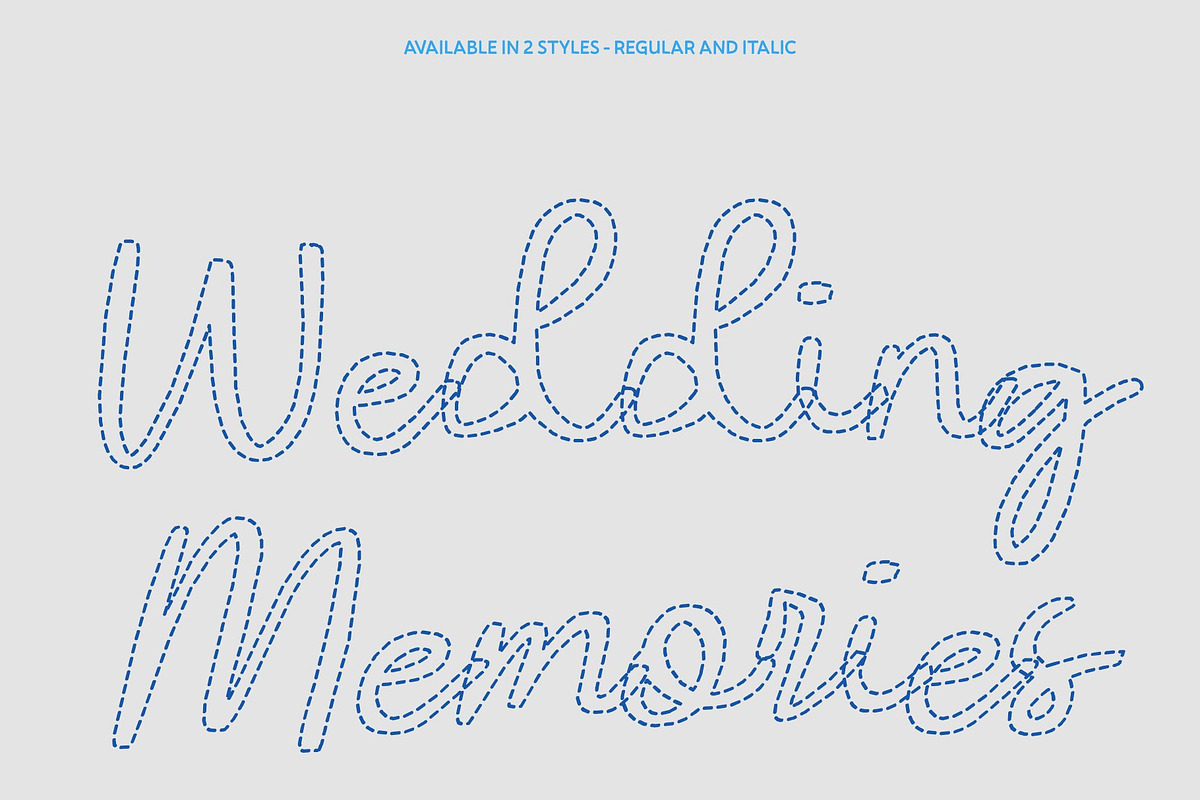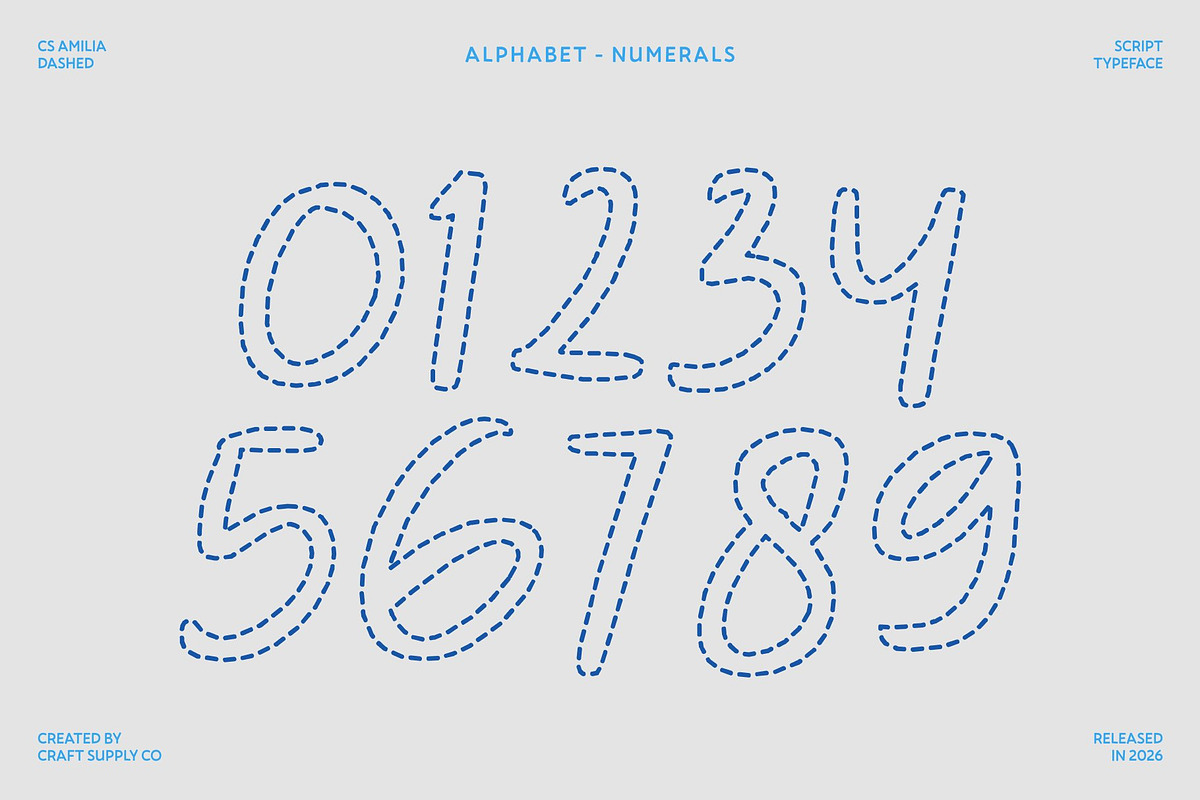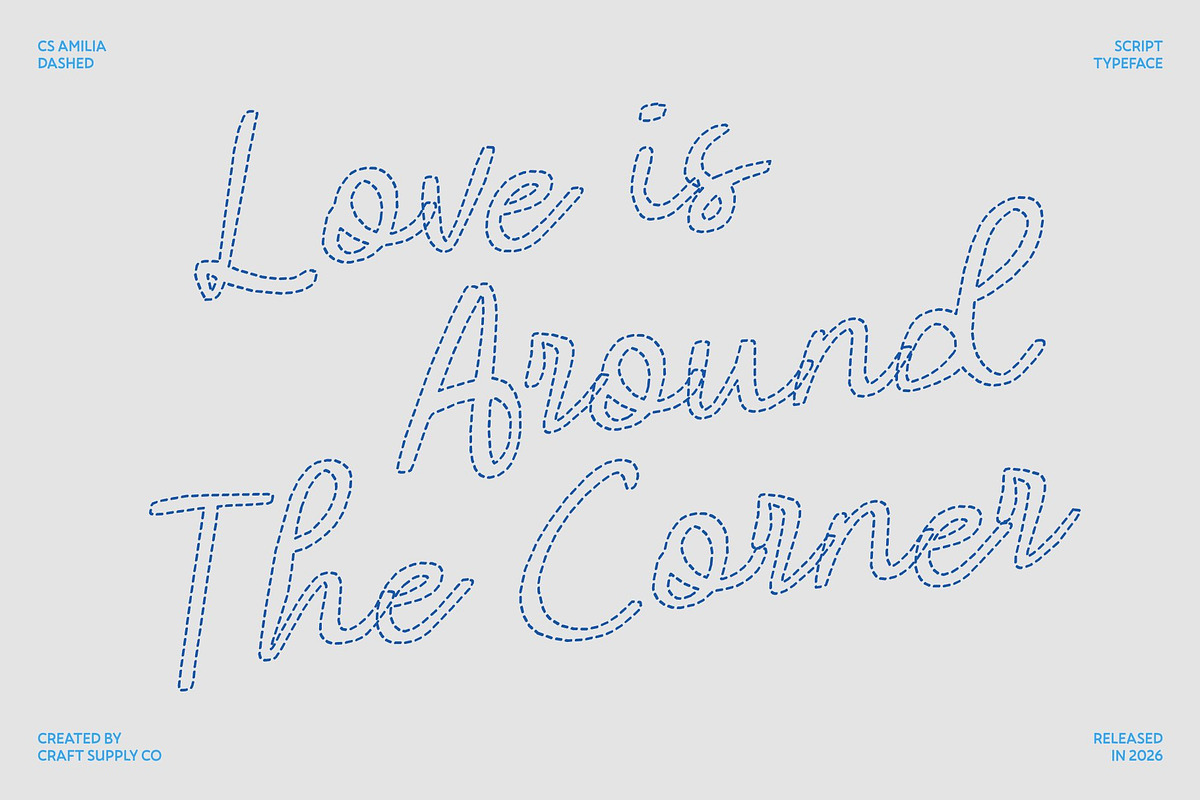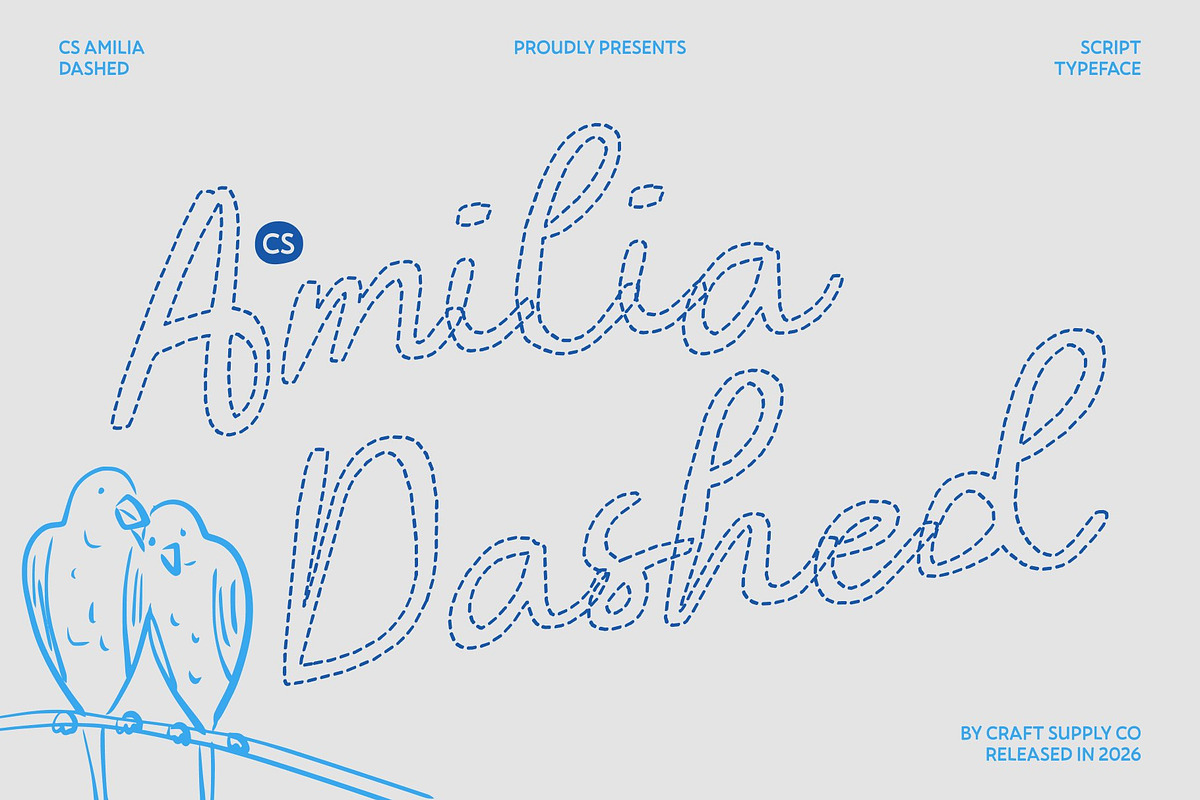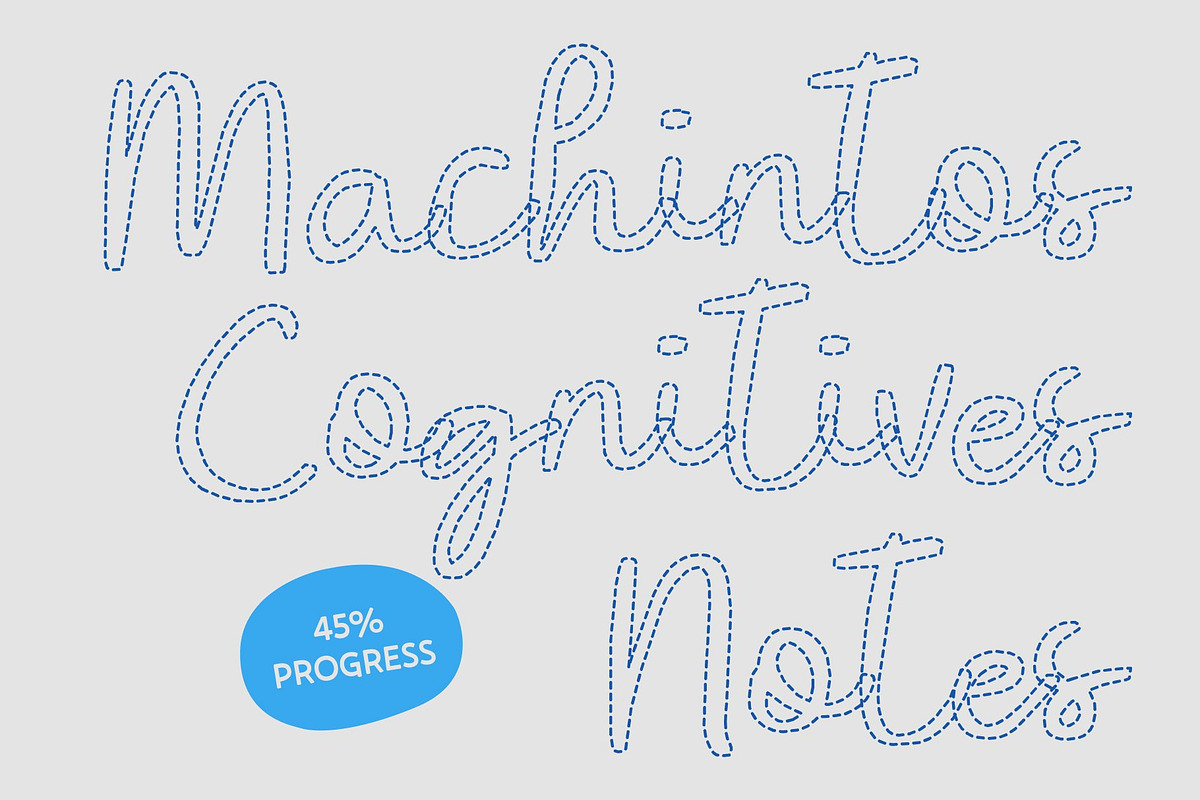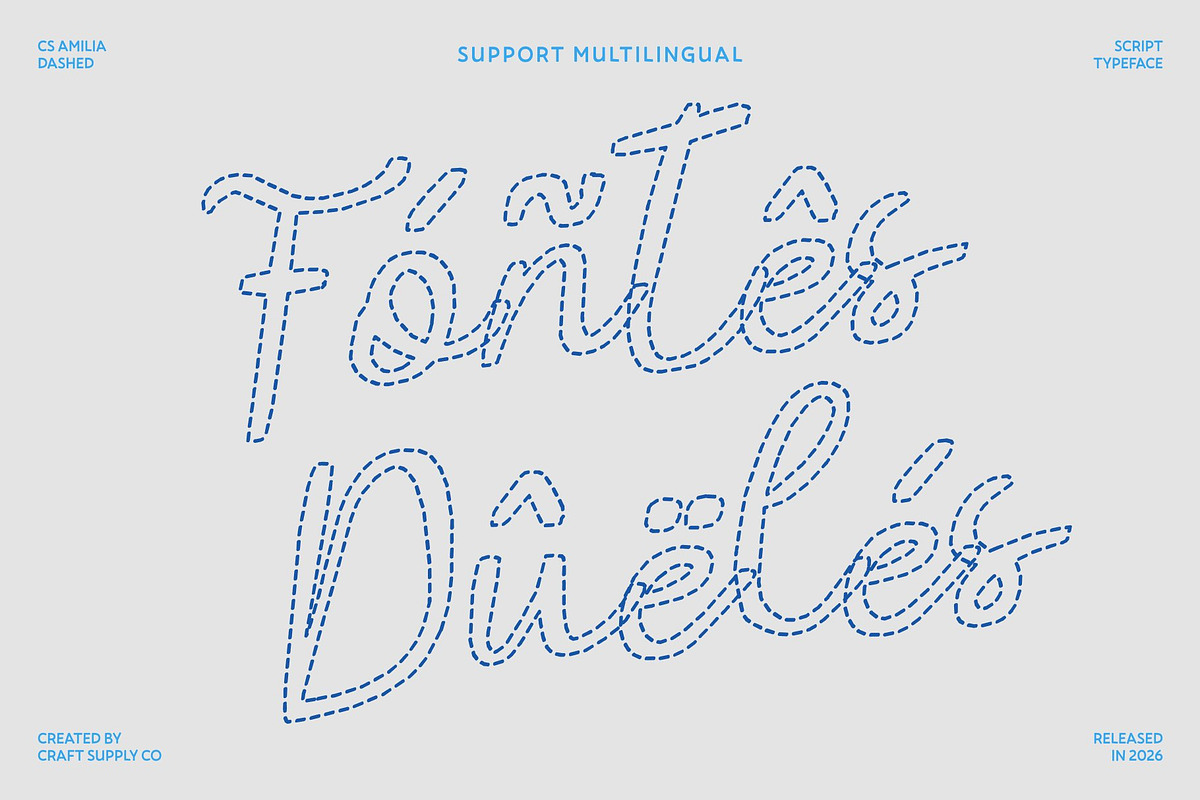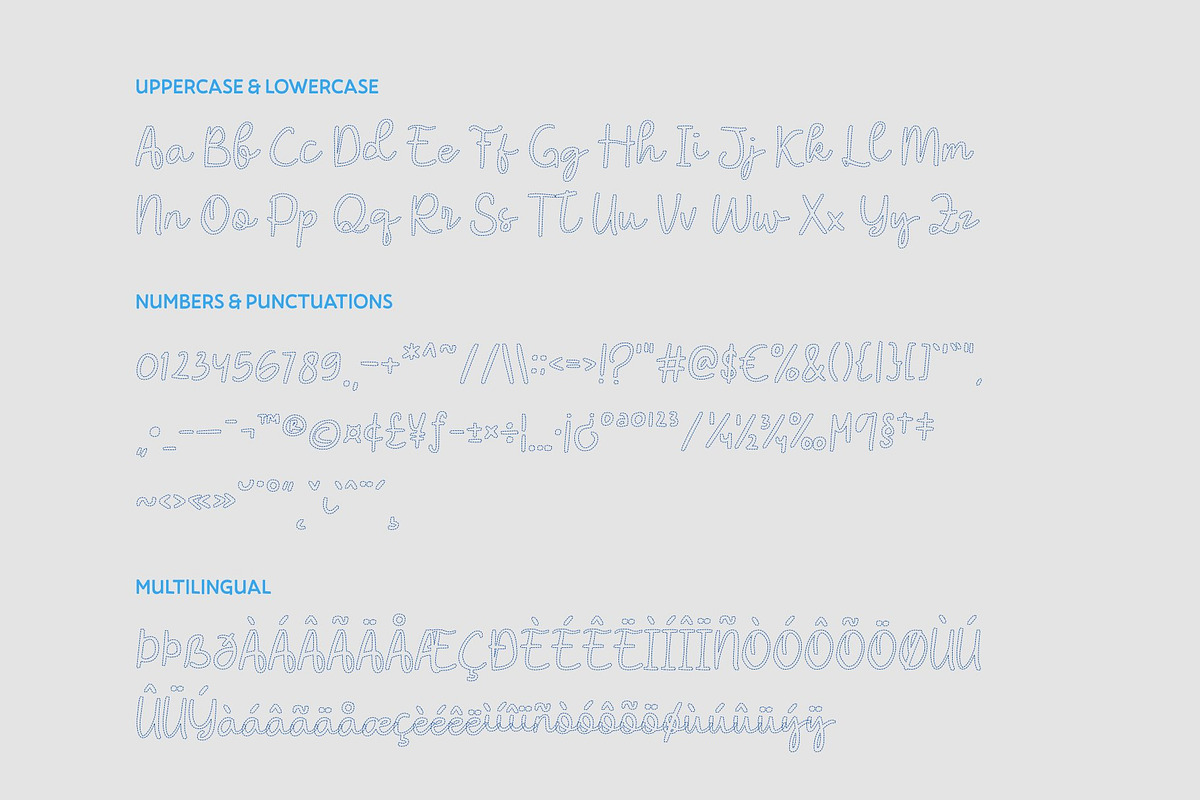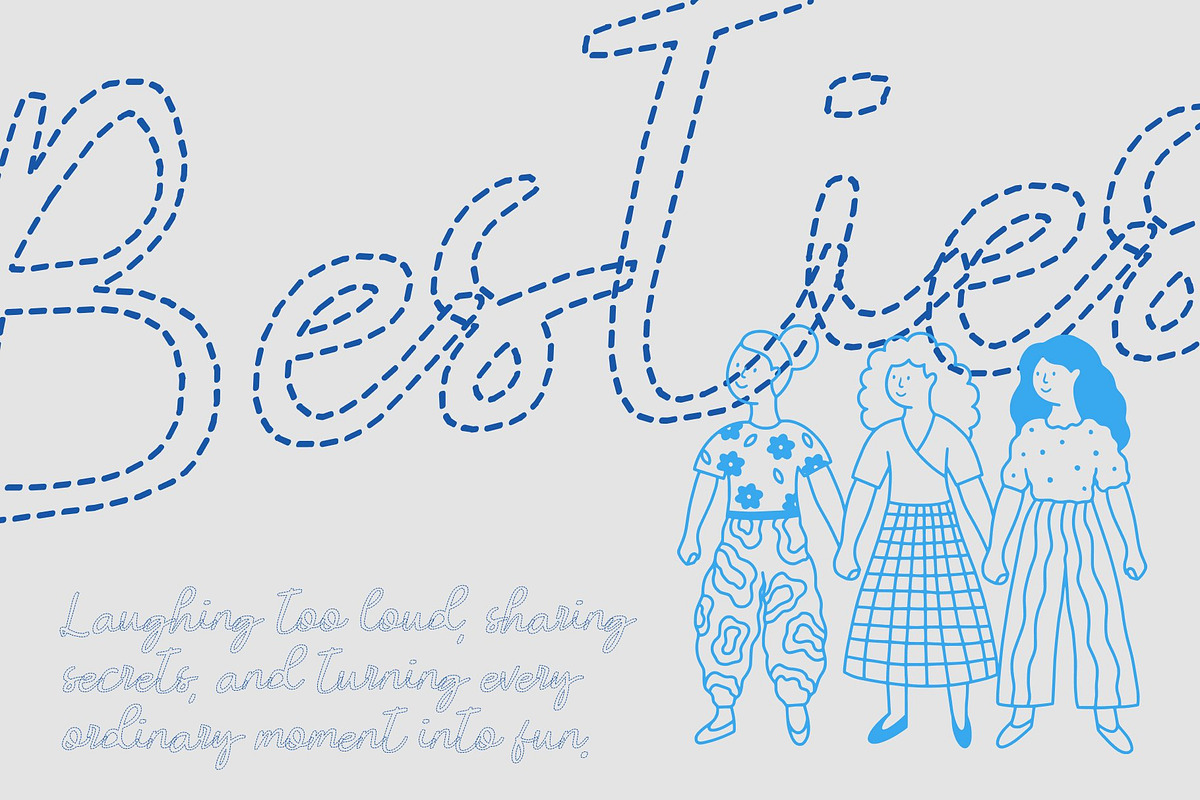
CS Amilia Dashed
CS Amilia Dashed – Artistic Handwritten Script with Elegant Flourishes
Expressive Strokes with Airy Dashed Beauty This is an artistic handwritten script font designed with fluid strokes and expressive curves that bring warmth and elegance to any project. Its defining feature is the dashed construction each letter formed from delicate, broken segments rather than solid lines creating a light, airy texture that enhances its handcrafted, graceful appearance.
Stylish Dashed Swashes and Flourishes What sets this font apart is its refined swashes and decorative flourishes, now enriched with subtle segmented strokes. These dashed details add movement and artistic rhythm, as if the pen gently lifts and glides across the page. The result is a visually engaging script that feels both sophisticated and creatively expressive.
Perfect for Branding and Signature-Style Logos Ideal for branding projects that require a personal and elegant touch, this font transforms logos, taglines, and brand marks into refined visual statements. The combination of flowing script and dashed detailing creates a balance between luxury and approachability perfect for beauty brands, boutiques, fashion labels, and lifestyle businesses.
Ideal for Invitations and Creative Layouts With its romantic flow and decorative finesse, this is perfect for invitations, wedding stationery, greeting cards, and event posters. Its airy dashed strokes add softness and visual drama, turning every message into a meaningful and memorable design element full of charm, elegance, and artistic personality.
CS Amilia Dashed Regular
CS Amilia Dashed Italic